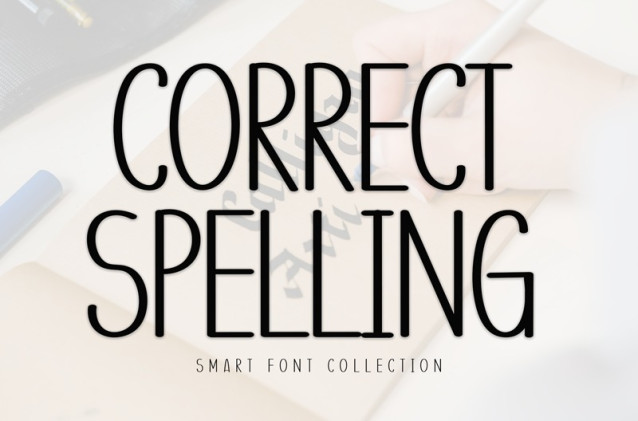
Correct Spelling Font
Correct Spelling Font is a fun, friendly, and flowing handwritten font. It has beautiful and well-balanced characters and as a result, it matches a wide pool of designs.